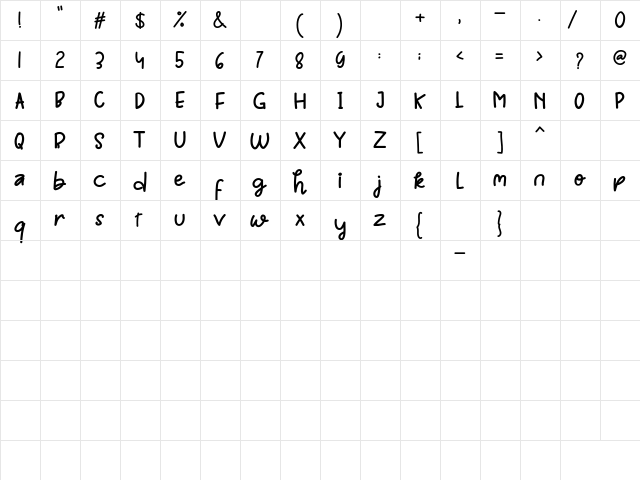
Fresh Onion Regular
| Designer | Surya Iswandi |
Design Context for Fresh Onion Typeface
Fresh Onion is a composed and adaptable typeface that performs quietly and consistently across a wide range of design contexts.